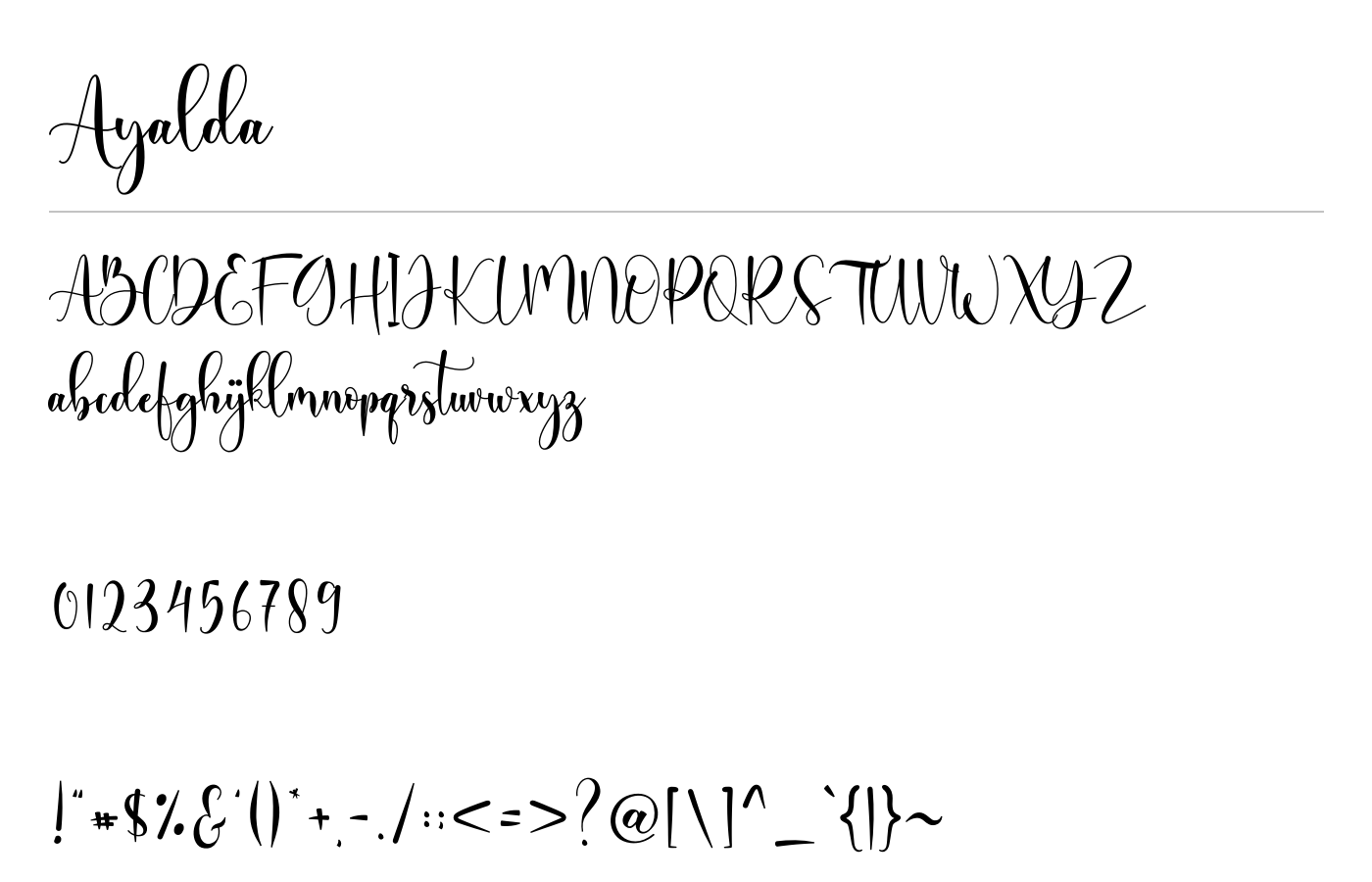
Ayalda Font
Designed by Nissa Nana
About Ayalda Font
Ayalda is an elegant, hand-drawn script font characterized by its flowing, high-contrast strokes and a delicate, playful charm. It features tall, slender characters with distinctive loops and swashes, making it perfect for invitations, branding, and creative projects that seek a feminine, sophisticated, yet approachable look. This font works best in headlines and decorative text where a touch of graceful personality is desired.